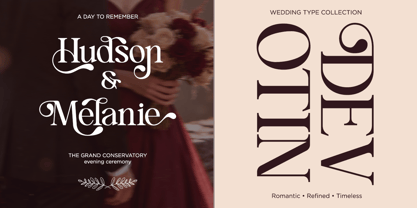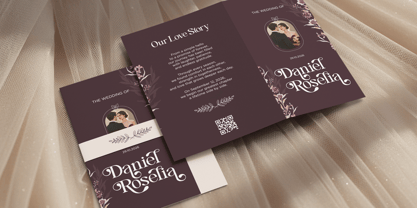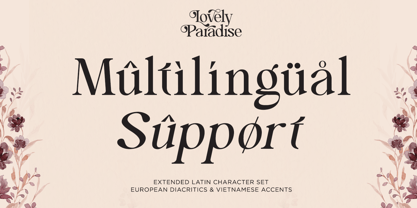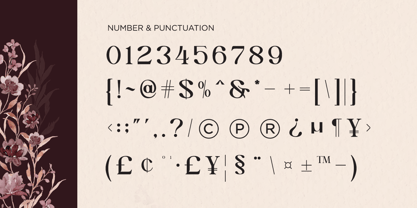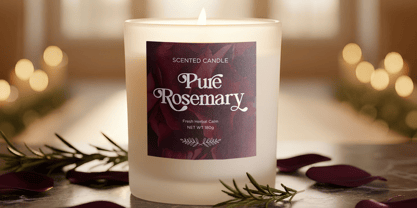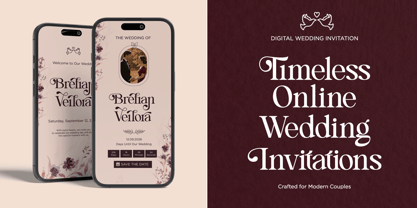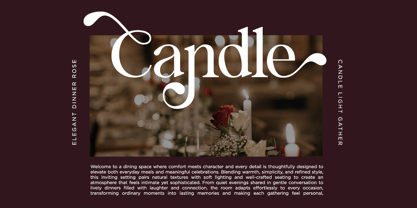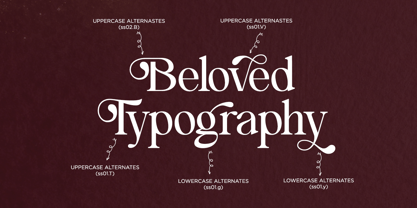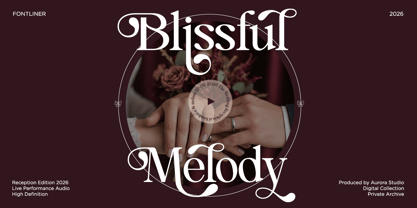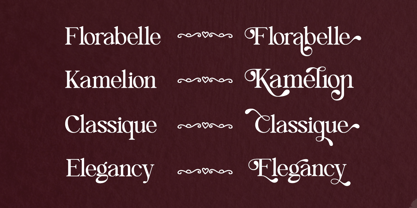
Lovely Paradise
by Font Liner
The Lovely Paradise Font Family was designed by Ghina Luthfiarieska and published by Font Liner. Lovely Paradise contains 2 styles and family package options. More about this family
Lovely Paradise is a decorative serif font designed to convey romance, softness, and feminine elegance through its graceful curves, delicate swashes, and refined letter connections. With its ornamental details and smooth contrast, this typeface offers a charming visual tone that feels warm, emotional, and beautifully sophisticated, making it ideal for designs that require gentle luxury and heartfelt storytelling. Perfect for wedding branding, beauty products, fashion labels, floral designs, invitations, romantic packaging, boutique logos, social media graphics, and elegant editorial layouts, Lovely Paradise enhances every design with its graceful character and emotional appeal. Its decorative structure ensures high visual impact while maintaining clarity, balance, and premium aesthetics. From wedding stationery and cosmetic packaging to lifestyle branding and feminine logo design, Lovely Paradise transforms ordinary typography into captivating elegance. This font empowers designers to create stunning visuals that exude luxury, romance, and timelessness, helping every project stand out with softness, beauty, and emotional depth. Thank You, Have a Good Day! FontLiner